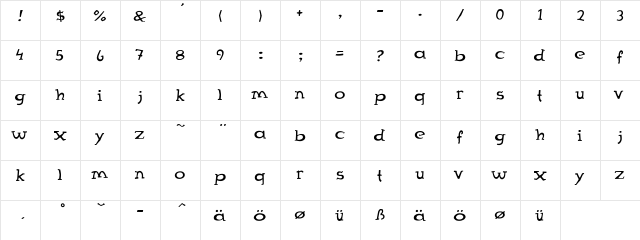
Mex Regular
Design Context for Mex Typeface
Mex takes a measured approach to typography — its balanced proportions and neutral character make it a reliable workhorse for both digital and print work.